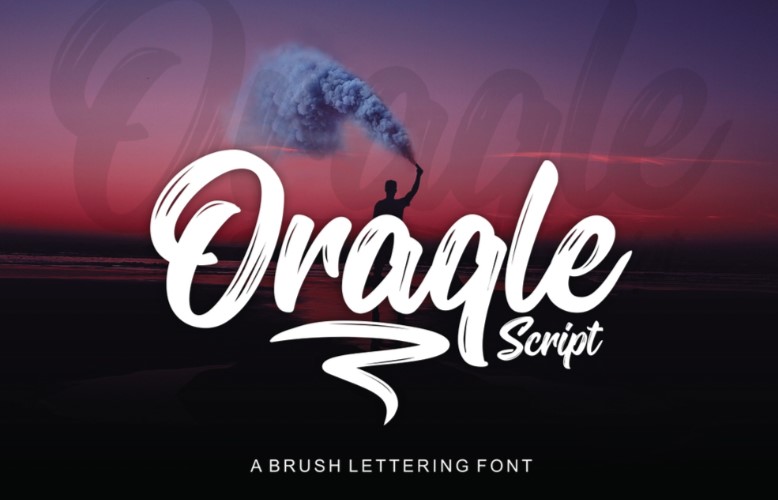
Oraqle Font
Oraqle Font is widely famous for its script typeface. This typeface shares similarity with the nexa font and the sugo pro font and available for free. Its appearances are immoderate in big sizes inside the hobby of small. However, the topography every better and decrease case letterings, numbers, and glyphs.
Inspired with the useful resource of the use of, the girly topics script font is a fashion font that works satisfactorily on an in-intensity fashion of realistic layout ventures. Oraqle Font Free The letterings in this are all top times, however, they’re entire of happiness and properly-due to this that of a house on our calm, free fonts list. It is a self-made brush with sufficient characters. It is an easy, ambitious and curved that works splendidly in first-rate sizes, which encompass headings.